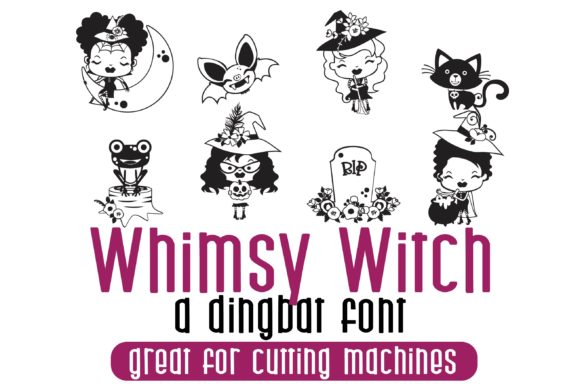
**Whimsy Witch: A Bewitching Collection of Enchanting Dingbats**
Unleash the magic of Whimsy Witch, an enchanting collection of 26 captivating dingbats that will cast a spell on your designs. These bewitching images, lovingly crafted by Illustration Ink, will conjure up a world of whimsy and wonder, leaving your projects spellbound.
With Whimsy Witch, you'll have a coven of adorable witchy companions at your fingertips. Whether they're sporting cute little flowers, casting magical spells, or simply adding a touch of enchantment, these delightful dingbats will transform your creations into otherworldly masterpieces.
These enchanting images are not just visually stunning; they're also incredibly versatile. Use them to add a touch of magic to invitations, greeting cards, social media posts, website designs, and more. The possibilities are as limitless as your imagination.
Don't miss out on the enchanting power of Whimsy Witch. Add these captivating dingbats to your collection today and let their magic cast a spell on your designs!